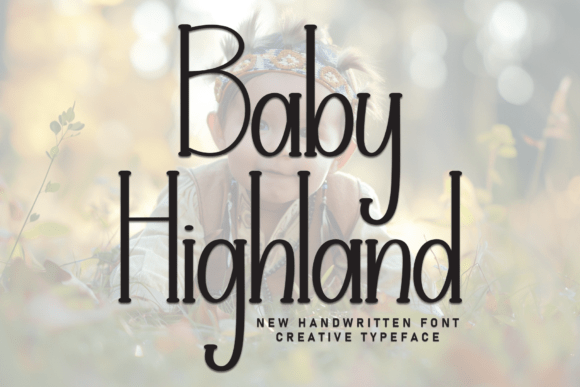
The Magic of Handwritten Charm: Introducing Baby Highland Font
Have you ever stumbled upon a handwritten note or a beautifully crafted card that instantly brightened your day? For many of us, the charm of handwritten fonts is a universal language that speaks directly to our hearts. It’s a reminder that sometimes, the simplest and most personal touches can make all the difference in our lives.
That’s exactly what the Baby Highland Font aims to bring to your projects – a sense of effortless beauty and lively creativity. This unique display typeface is designed to radiate happiness and friendliness, making it the perfect addition to wedding invitations, greeting cards, and any design that needs a dash of joy. For designers, the Baby Highland Font is a valuable tool for creating heartfelt and custom expressions that set your projects apart.
Baby Highland Font Key Features
- Unique Characteristics: Baby Highland Font features a unique, hand-drawn design with a playful and whimsical feel, perfect for creating a child-friendly atmosphere.
Baby Highland Font Review
Overall, I have mixed feelings about the Baby Highland Font. On one hand, it has some unique qualities that could make it a great addition to certain designs.
The font’s playful, whimsical feel is perfect for children’s products, nursery decor, or any design that needs a touch of innocence.
The font’s irregular shapes and lines give it a hand-drawn, organic feel that can add a personal touch to a design.
The font comes in a variety of weights, making it easy to customize for different design needs.
The font may not be suitable for formal or professional designs, as its playful feel may come across as immature.
The font’s irregular shapes and lines may be difficult to read for some users, especially at smaller font sizes.
The font may not be as versatile as other fonts, as its unique feel may not be suitable for all design applications.
Overall, the Baby Highland Font is a unique and playful font that can add a personal touch to certain designs. However, its limitations may make it less suitable for formal or professional designs.
Tips for Getting the Most Out of Baby Highland Font
Use Baby Highland Font for:
- Creating whimsical and playful designs.
- Adding a touch of rustic charm to your projects.
- Designing baby-themed projects, such as nursery decor or baby announcements.
Baby Highland Font is commonly used for:
- Baby shower invitations.
- Baby announcement cards.
- Nursery decor and wall art.
Alternatives to Baby Highland Font
Great Vibes is a beautiful script font that resembles a handwritten font. It’s perfect for adding a touch of elegance and sophistication to your designs. It’s ideal for use in wedding invitations, quotes, and other romantic designs.
Great Vibes is more cursive than Baby Highland Font, with a more fluid and connected look. It’s also more suitable for longer texts, as the connected letters make it easier to read.
Literata
Literata is a elegant script font that’s perfect for adding a touch of luxury to your designs. It’s ideal for use in high-end branding, invitations, and other designs where you want to convey a sense of sophistication.
Literata is more refined and polished than Baby Highland Font, with a more subtle and elegant look. It’s also more suitable for use in smaller text sizes, as the refined lines make it easier to read.
Carolyna Pro is a beautiful script font that’s perfect for adding a touch of whimsy and playfulness to your designs. It’s ideal for use in children’s branding, invitations, and other designs where you want to convey a sense of fun and adventure.